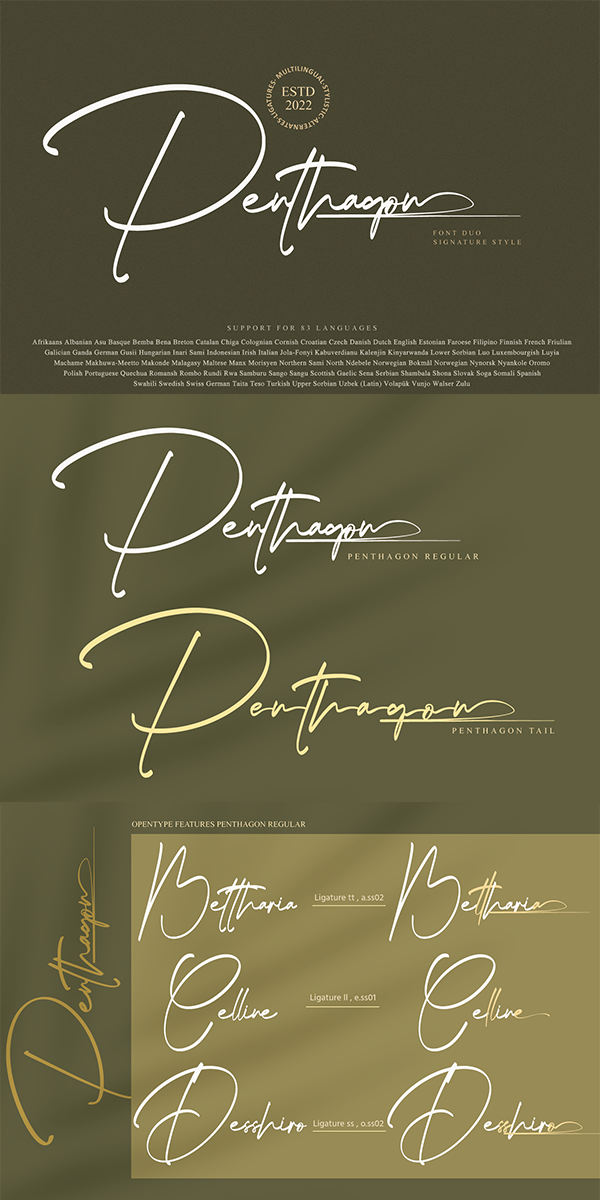
Penthagon Font
Designed by Gie Studio
About Penthagon
Penthagon is Script Font Duo with elegant and signature style, that are very beautiful,luxurious,and high class for creating handwritten-style logos, wedding stationery, photographer watermarks logos, modern websites, fashion branding, name card, wedding invitation, and all the identity of your business products.
-Multilingual Support for 83 Country
-Ligature collection